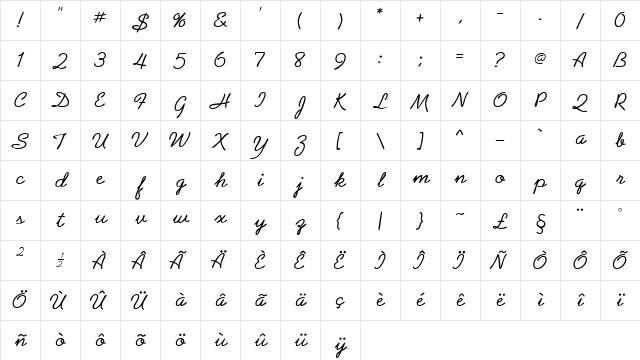
Abbruze Regular
Abbruze Family
Complete Abbruze Regular glyph index. Displaying only characters natively supported by Abbruze Regular font.
Design Context for Abbruze
Abbruze is a composed and adaptable typeface that performs quietly and consistently across a wide range of design contexts.